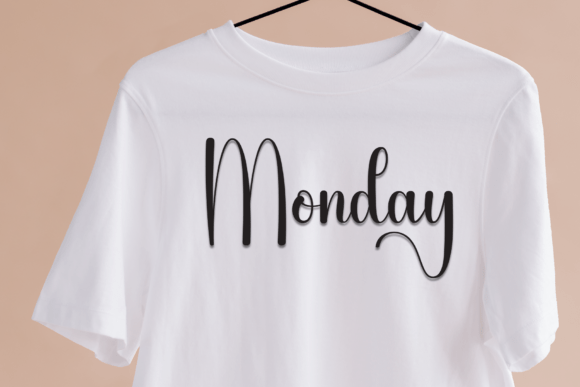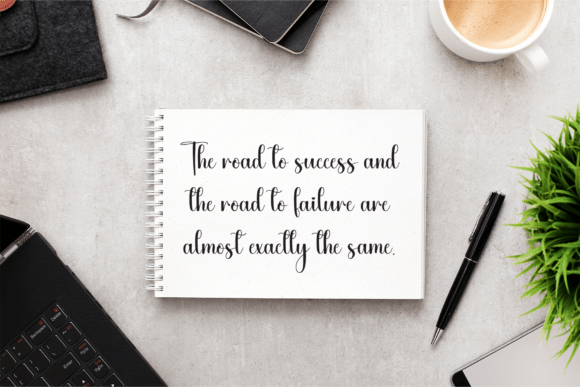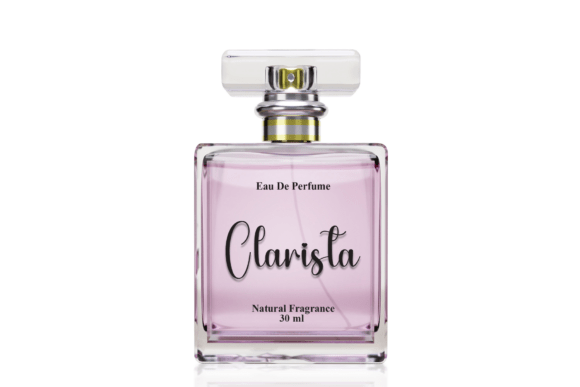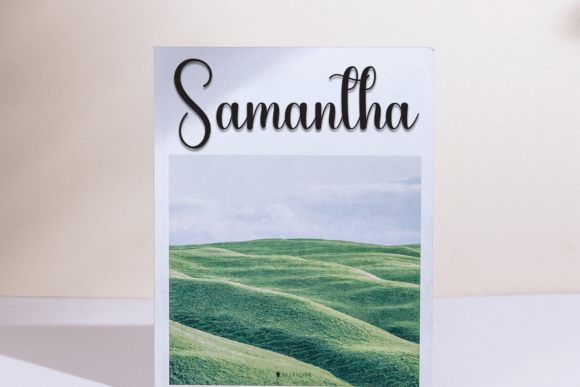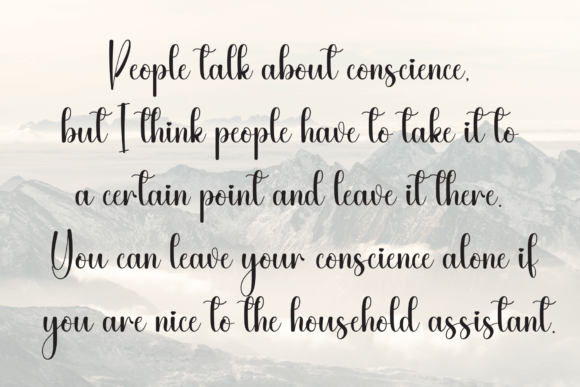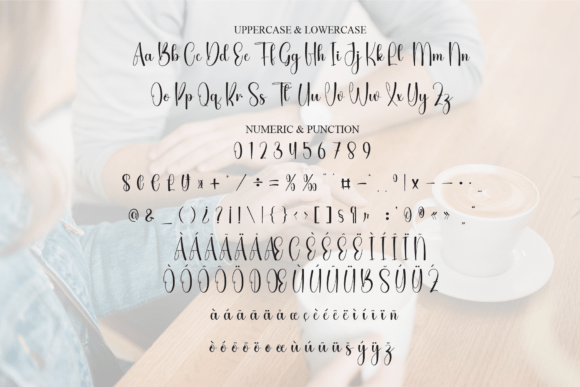
Introducing Dateyou Font: Elevate Your Designs with Elegance and Fluidity
In the world of typography, a font can make or break a design. For designers and crafters seeking to add a touch of sophistication and elegance to their projects, Dateyou Font is an exceptional choice. This stylish handwritten script font is designed to radiate elegance and fluidity, making it perfect for a wide range of applications, from branding and invitations to creative projects.
The Characteristics of Dateyou Font
Dateyou Font boasts smooth, flowing strokes that create a natural and sophisticated feel. Its unique blend of traditional script elements and modern flair makes it an excellent choice for designers looking to add a personal, artistic touch to their work. The font’s graceful balance of charm and modernity ensures that it can be used in various design contexts, from formal events to everyday branding.
Key Features of Dateyou Font
- Elegant and Fluid Design: Dateyou Font features smooth, connected letters that flow seamlessly into one another, creating a sense of movement and elegance.
- Handwritten Script Style: The font’s handwritten script style adds a personal touch to any design, making it perfect for invitations, greeting cards, and other creative projects.
- Versatile and Modern: Dateyou Font’s modern flair ensures that it can be used in a variety of design contexts, from traditional to contemporary.
- Sophisticated and Refined: The font’s sophisticated feel makes it an excellent choice for branding, packaging, and other high-end design applications.
Uses of Dateyou Font
Dateyou Font is an incredibly versatile typeface that can be used in a wide range of design projects, including:
- Branding and Logo Design: The font’s elegant and sophisticated feel makes it perfect for creating high-end brand identities and logos.
- Invitations and Stationery: Dateyou Font’s handwritten script style and flowing strokes make it an excellent choice for invitations, greeting cards, and other stationery.
- Creative Projects: The font’s unique blend of traditional and modern elements makes it perfect for creative projects, such as art journals, scrapbooking, and mixed media.
- Packaging and Advertising: Dateyou Font’s sophisticated feel and modern flair make it an excellent choice for packaging and advertising design.
Why Choose Dateyou Font?
With so many fonts available, why choose Dateyou Font? Here are just a few reasons why designers and crafters love this typeface:
- Unique and Eye-Catching: Dateyou Font’s elegant and fluid design makes it stand out from more traditional fonts, adding a touch of sophistication to any design.
- Highly Versatile: The font’s versatility ensures that it can be used in a wide range of design contexts, from formal events to everyday branding.
- Easy to Read: Despite its elegant and flowing design, Dateyou Font is highly legible, making it perfect for body text and headlines.
In conclusion, Dateyou Font is an exceptional choice for designers and crafters seeking to add a touch of elegance and fluidity to their projects. Its smooth, flowing strokes and sophisticated feel make it perfect for a wide range of applications, from branding and invitations to creative projects. With its unique blend of traditional script elements and modern flair, Dateyou Font is sure to elevate your designs and add a personal, artistic touch.